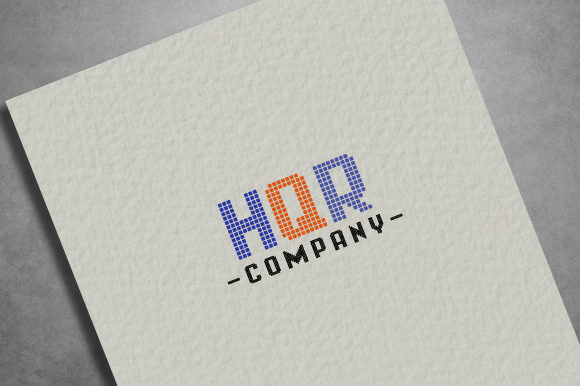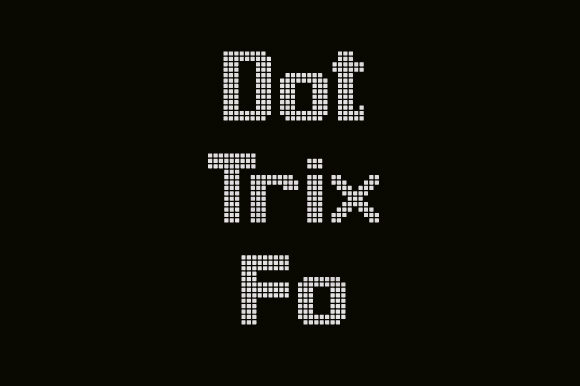
Introducing Dotrixfo Font: The Epitome of Modern Typography with a Digital Twist
In the realm of typography, the quest for a font that embodies both modernity and a futuristic aesthetic is a perpetual one. For designers and crafters seeking a typeface that resonates with the pulse of digital technology, the Dotrixfo font emerges as a beacon of innovation. This article aims to explore the nuances of the Dotrixfo font, its design philosophy, and its applications, making it an indispensable resource for those keen on infusing their projects with a contemporary digital vibe.
The Genesis of Dotrixfo Font
The Dotrixfo font is a relatively recent addition to the typographic landscape, conceived with the objective of encapsulating the essence of modern digital technology in a visually compelling manner. Its creation involved a meticulous process, combining traditional typographic principles with cutting-edge design techniques. This fusion results in a typeface that not only looks modern but also feels distinctly futuristic.
At the heart of the Dotrixfo font lies its distinctive design, characterized by clean lines, geometric shapes, and a hint of digital flair. Each letterform is crafted to convey a sense of dynamism and forward-thinking, making it an ideal choice for projects that demand a modern aesthetic. The font’s digital technology look is not just a superficial trait but an integral part of its design DNA, setting it apart from more traditional typefaces.
- Geometric Precision: The Dotrixfo font boasts geometric precision, with letterforms that exhibit a careful balance of curves and straight lines.
- Digital Flair: Its digital look is achieved through subtle design elements that evoke the feel of digital screens and interfaces.
- Versatility: Available in various weights, the Dotrixfo font offers versatility, making it suitable for a wide range of applications, from digital media to print.
Applications of Dotrixfo Font
The Dotrixfo font’s modern and digital aesthetic makes it a versatile tool for various design projects. Here are some of the key areas where this typeface shines:
Digital Media:
In digital media, the Dotrixfo font finds its sweet spot. Its design is optimized for screens, making it perfect for websites, mobile apps, and digital marketing materials. The font’s clarity and legibility ensure that content stands out, even in crowded digital landscapes.
Branding and Logo Design:
For brands aiming to project a modern and tech-savvy image, the Dotrixfo font serves as an excellent choice for logo design and brand identity. Its unique aesthetic can help brands differentiate themselves in competitive markets.
Print Media:
While optimized for digital use, the Dotrixfo font also translates well to print. Its geometric and clean design makes it suitable for magazines, brochures, and any print materials requiring a contemporary look.
Why Choose Dotrixfo Font?
Choosing the Dotrixfo font for a project comes with several advantages:
- Uniqueness: It offers a fresh and distinctive look that can set a project apart.
- Legibility: Its design prioritizes legibility, ensuring that messages are conveyed clearly across various mediums.
- Flexibility: Available in multiple weights, it provides flexibility for different design needs.
The Dotrixfo font stands as a testament to modern typography’s evolution, blending the best of traditional design principles with the aesthetics of digital technology. For designers and crafters on the lookout for a typeface that embodies the spirit of the digital age, Dotrixfo offers a compelling solution. Its unique blend of geometric precision, digital flair, and versatility makes it an invaluable asset for a wide array of design projects. As we continue to navigate the ever-changing landscape of design and technology, fonts like Dotrixfo are leading the way, redefining what it means to communicate effectively and stylishly in the digital era.